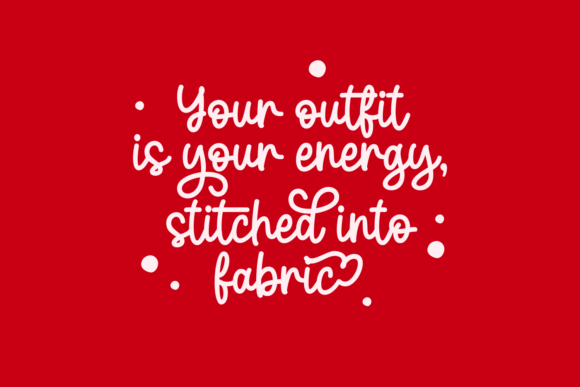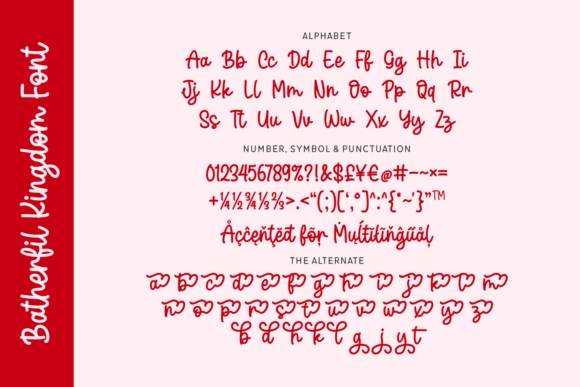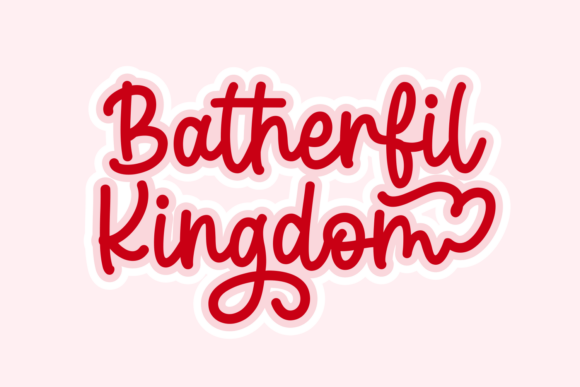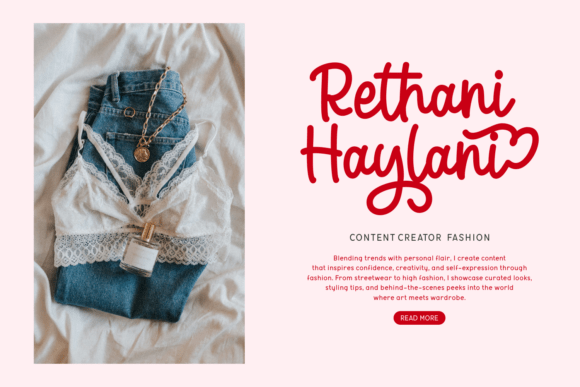
Batherfil Kingdom Font: A Playful Script for Cute DIY & Cricut Projects
About the Batherfil Kingdom Font
Introducing the Batherfil Kingdom Font, a beautifully crafted typeface designed to elevate your creative projects. Batherfil Kingdom is a vibrant, hand-drawn script font bursting with playful energy and charm. Featuring thick strokes, a casual brush style, and a heart-accented swash, this font is perfect for standout sticker designs, kid-themed projects, YouTube thumbnails, or cheerful social posts. The layered look with an outlined shadow gives it an irresistible, pop-art vibe—making Batherfil Kingdom a go-to choice for anything that needs a loud, lovable, and joyful voice.